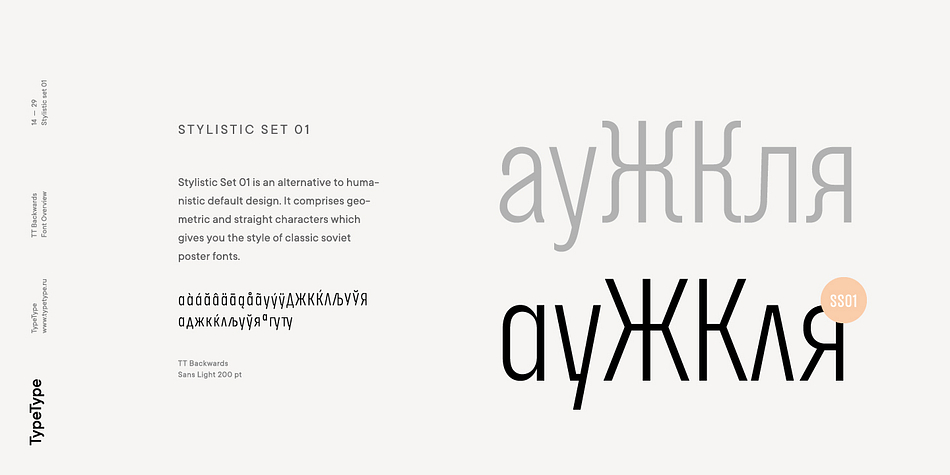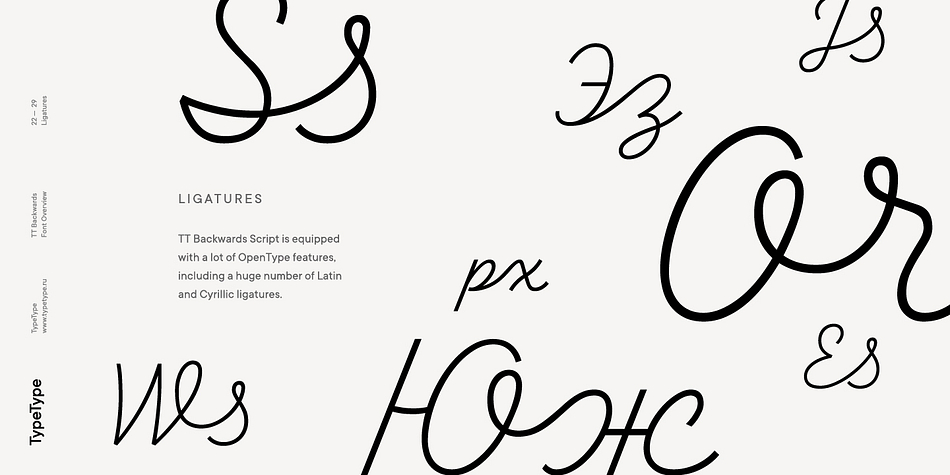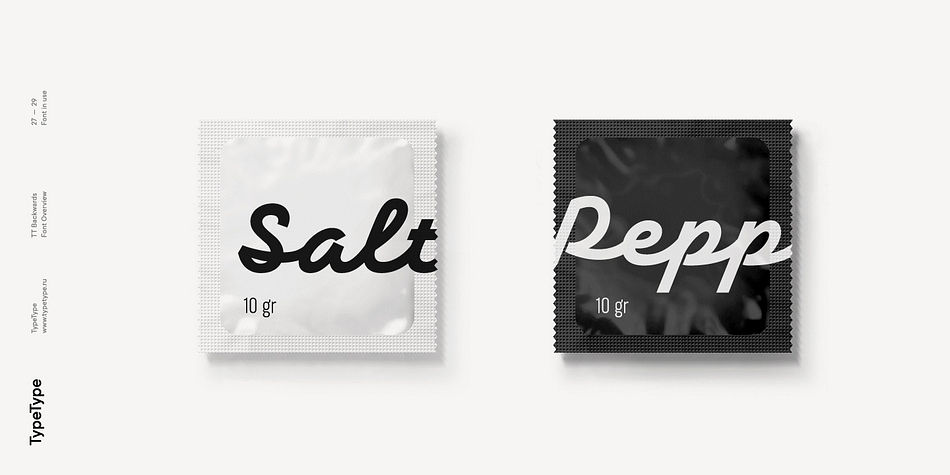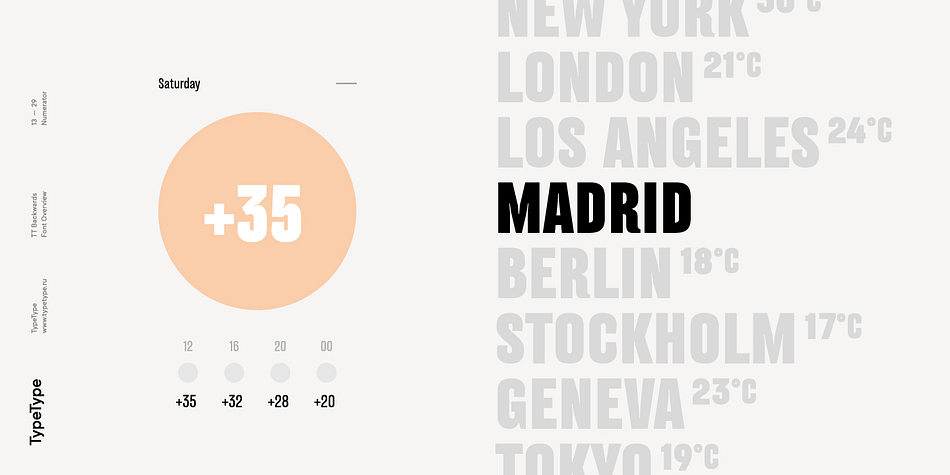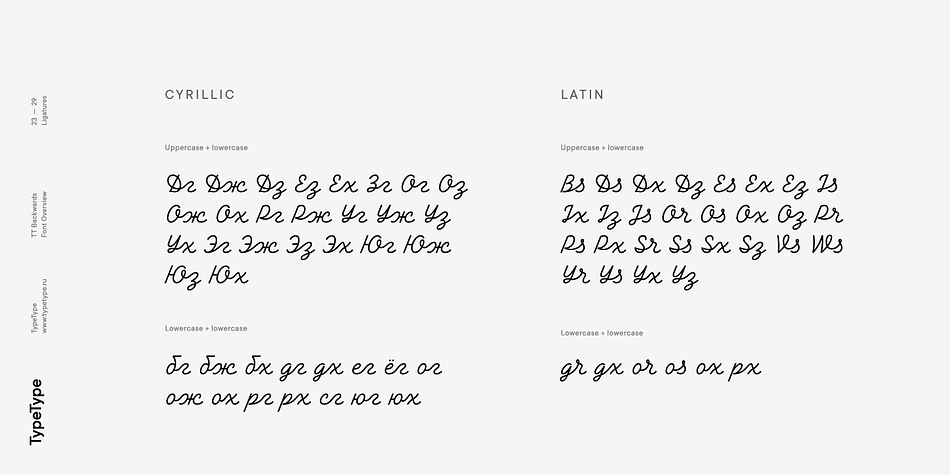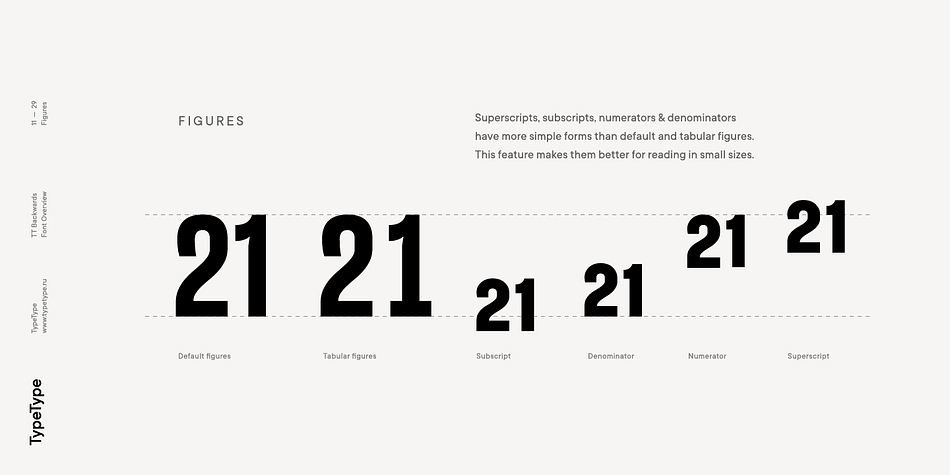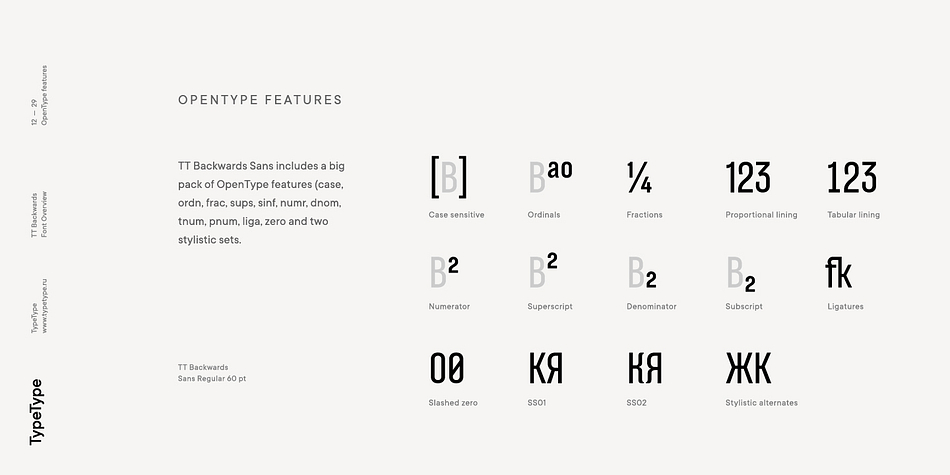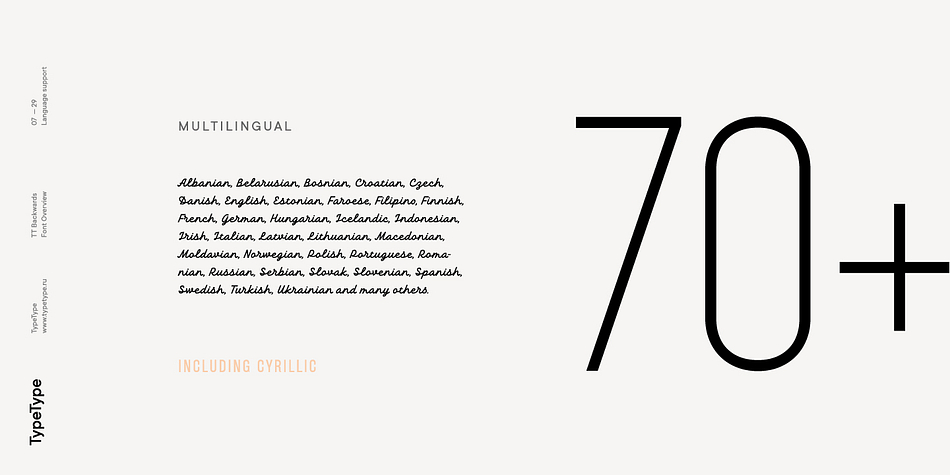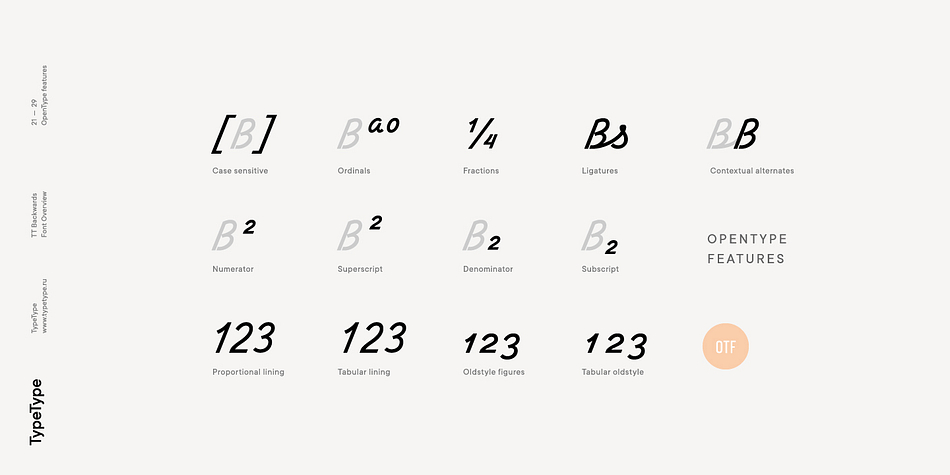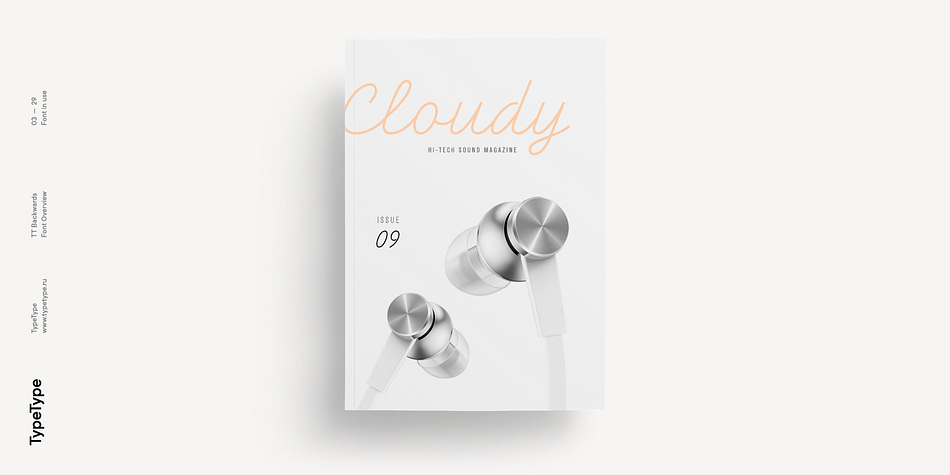
TT Backwards is a brush script and display sans font family. This typeface has ten styles and was published by Typetype.
TT Backwards is an experimental font project inspired by the USSR typography and fonts of the late 70s and early 80s. Shop signs, posters, and book design—this is where we drew the inspiration for our project from. TT Backwards consists of two complimentary font subfamilies, a Script and a Grotesque, each of them includes 5 typefaces in 5 different weights (Thin, Light, Regular, Bold, Black).
TT Backwards Script is a non-contrast almost monolinear solid script inspired by shop signs, poster and book design of the USSR. TT Backwards Script features a large number of Latin and Cyrillic ligatures (more than 70 items), which allows to make the script versatile and sophisticated to the max. And thanks to the implementation of a huge number of context alternates, all lowercase letters are joined softly and without breaks, and they meet the uppercase letters beautifully and correctly. TT Backwards Script supports the following OpenType features: liga, case, ordn, frac, sups, sinf, numr, dnom, tnum, onum, pnum.
TT Backwards Sans is a narrow grotesque which takes us back to the book design of late 70s and early 80s with its ductile characters. It is created considering its use in the small text size. TT Backwards Sans has a number of pronounced peculiarities: high x-height, exaggerated extenders, and big visual compensators and ink traps. Apart from the basic visual solution, TT Backwards Sans contains two experimental stylistic sets, which markedly change the overall visual perception of the text. SS01 alters high-frequency symbols of the Cyrillic alphabet, and SS02 significantly changes the high-frequency symbols of the Latin alphabet. The following OT features are implemented in TT Backwards Sans: case, ordn, frac, sups, sinf, numr, dnom, tnum, pnum, liga, zero, salt, ss01, ss02.